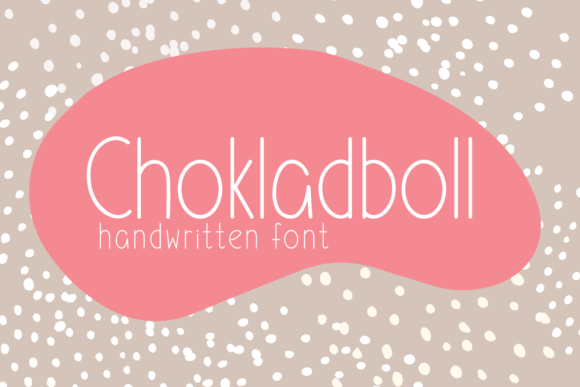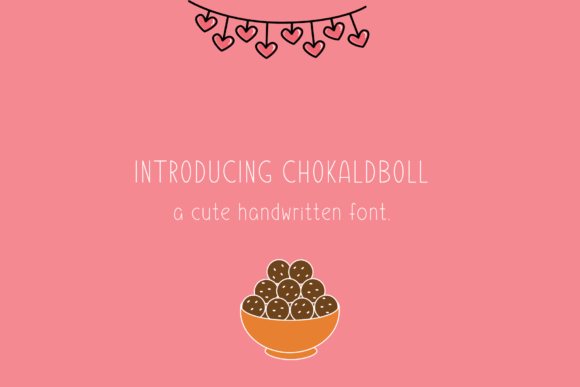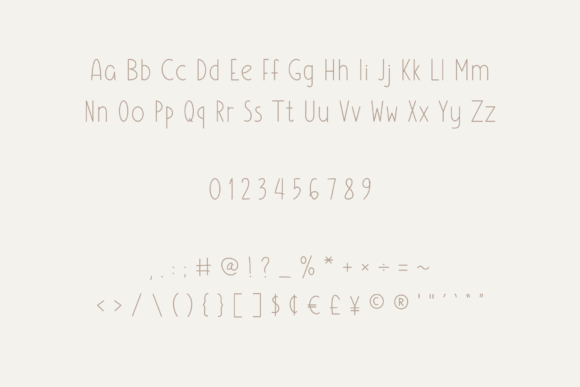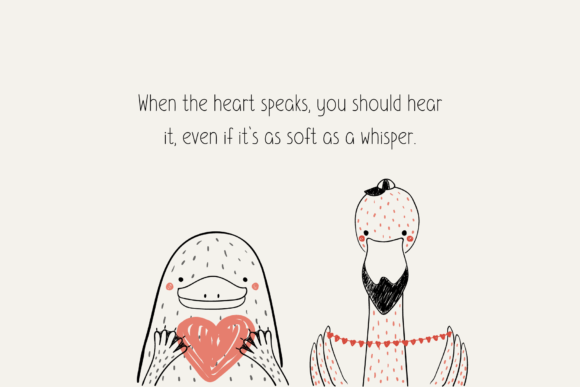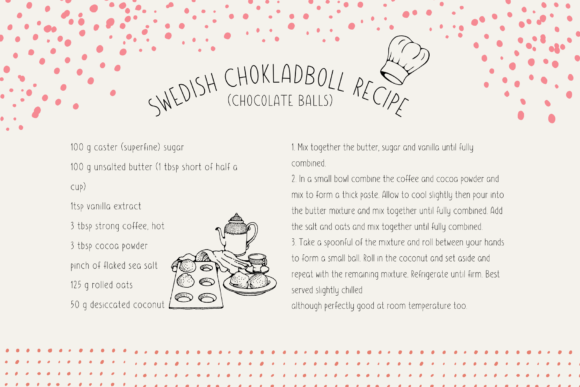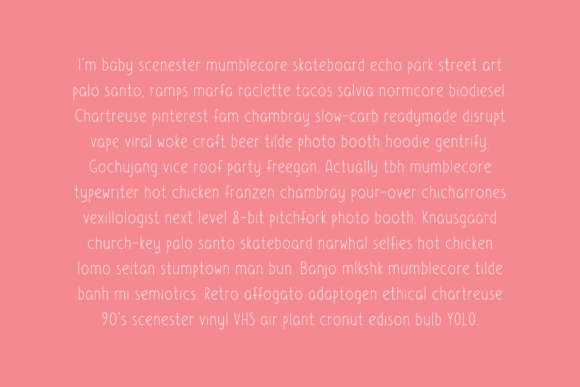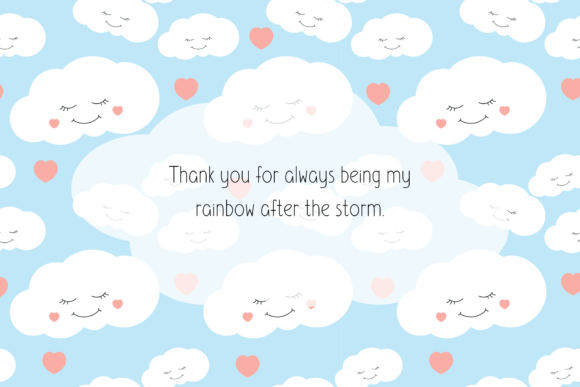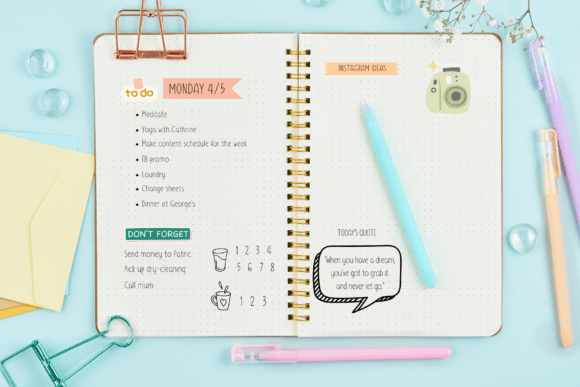
Chokladboll Font
Introducing Chokladboll, a cute handwritten font designed to add a friendly and youthful vibe to your creative projects. Whether you’re working on digital notes, journaling, branding, or any other creative endeavor, Chokladboll brings a playful and charming quality to your text.
The handwritten style of Chokladboll adds a personal touch to your projects, making it ideal for conveying authenticity and approachability. Its cute and friendly appearance makes it a perfect choice for designs that aim to connect with a younger audience or evoke a lighthearted atmosphere.
The versatility of Chokladboll allows it to adapt to various contexts, making it suitable for a wide range of applications. Whether you’re creating a digital note with a casual and approachable tone, journaling with a touch of creativity, or working on branding that exudes a friendly and welcoming vibe, Chokladboll is designed to complement your vision.
Imagine Chokladboll bringing a cute and handwritten charm to your social media graphics, adding a playful touch to digital notes, or contributing to a youthful and fun brand identity. The font is crafted to be visually appealing and adaptable to different creative projects, ensuring that it enhances the overall aesthetic with its friendly and cute demeanor.
In essence, Chokladboll is not just a font; it’s a creative tool that infuses a delightful and approachable quality into your text. Let it be the handwritten companion that adds a touch of cuteness and charm to your digital and print projects, making them more engaging and appealing to your audience.